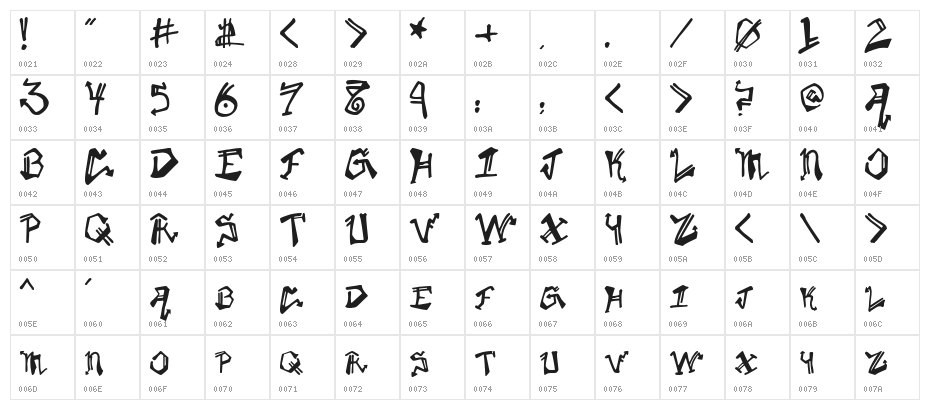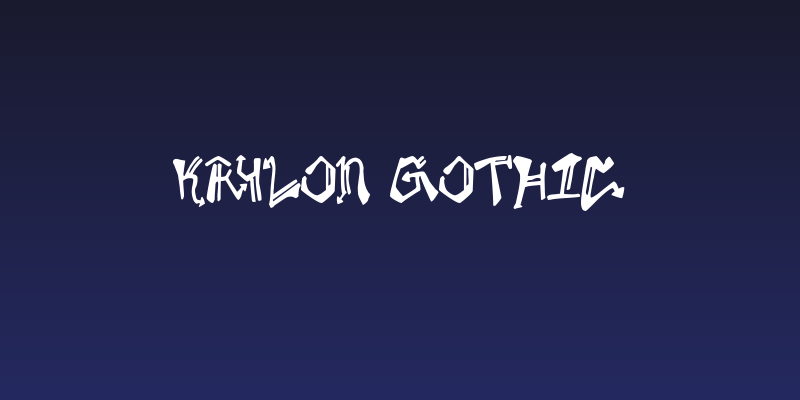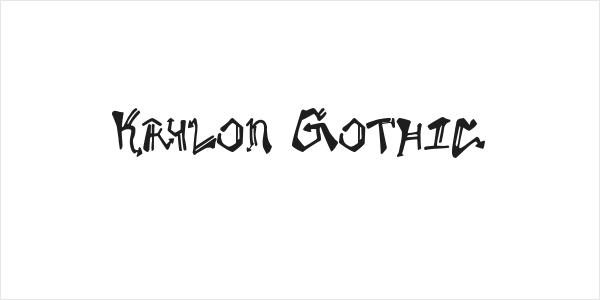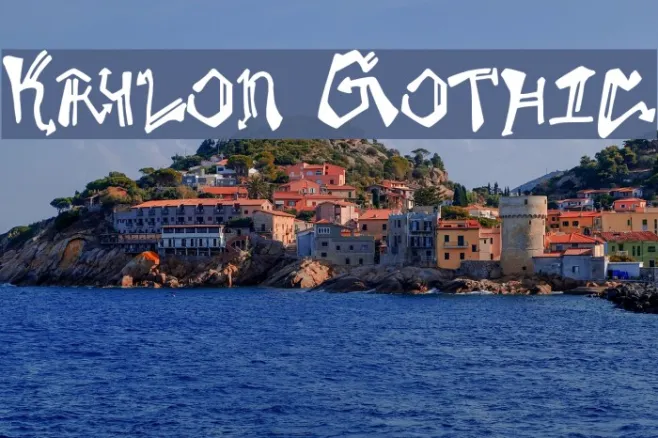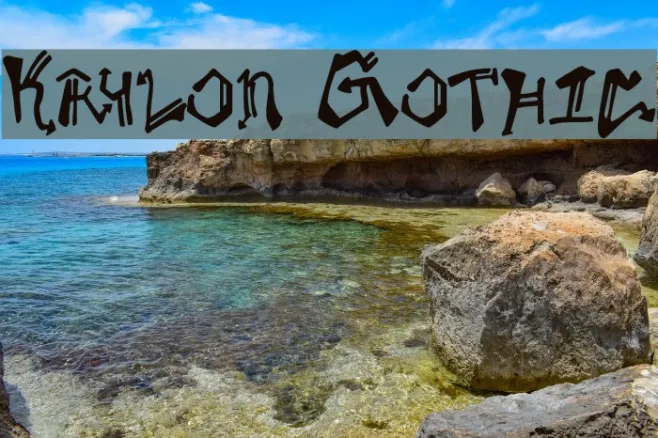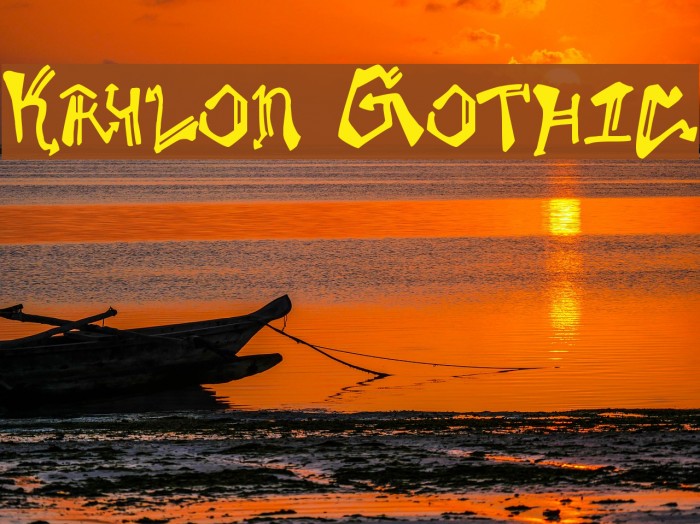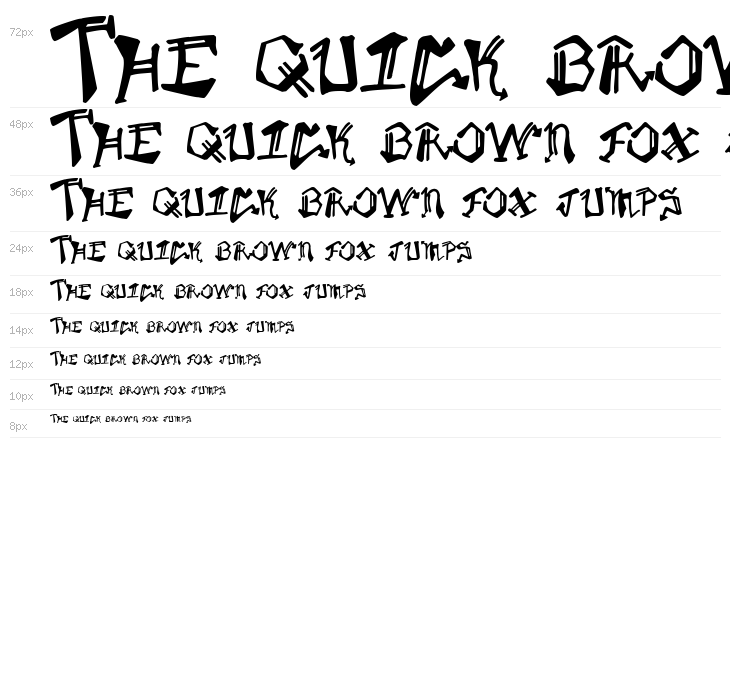
Krylon Gothic Font
Krylon Gothic Description
This font exhibits a bold, graffiti-inspired style with sharp, angular lines and a dynamic, energetic appearance. The uppercase and lowercase letters maintain a consistent, edgy aesthetic, characterized by exaggerated serifs and irregular strokes that evoke a sense of movement and rebellion. The numerals and special characters follow the same design principles, ensuring a cohesive look across all glyphs. The font's unique style makes it stand out, offering a distinctive visual impact that is both modern and urban. Its high contrast in stroke thickness adds to its boldness, making it ideal for attention-grabbing designs.
| Overall Style | Modern, Urban |
| Proposed Projects | Ideal for street art designs, urban-themed posters, edgy branding, and music album covers. |